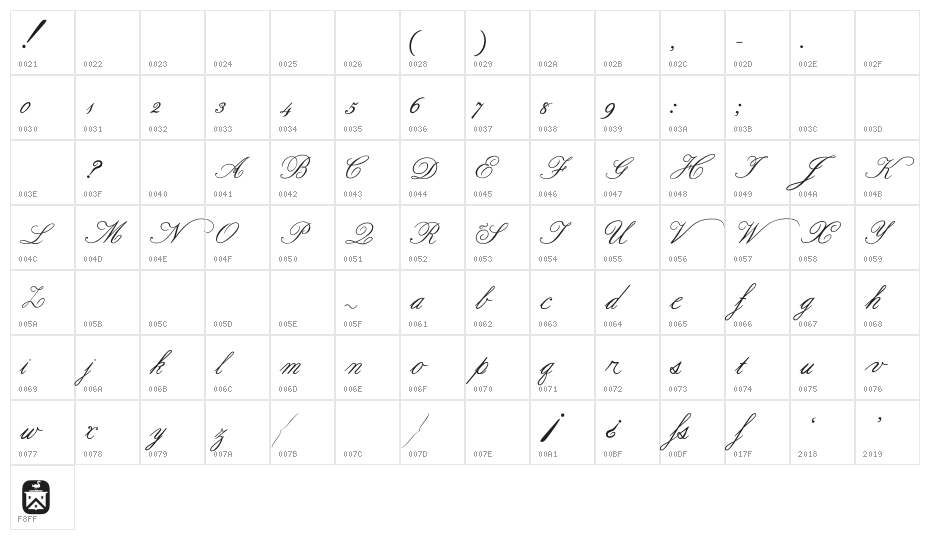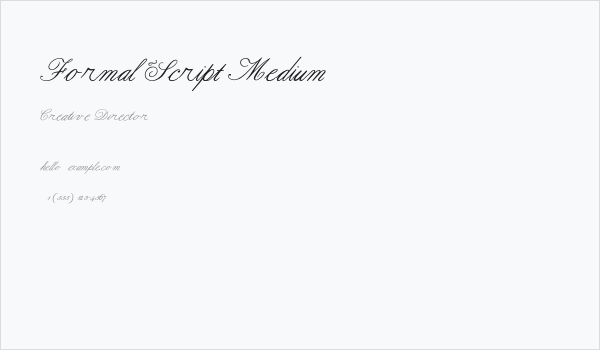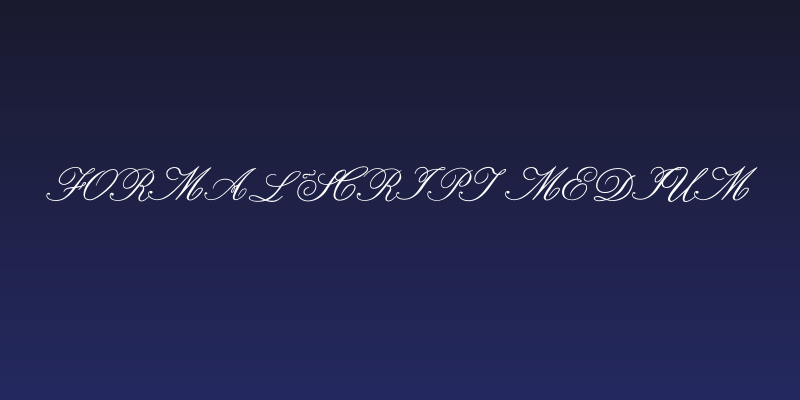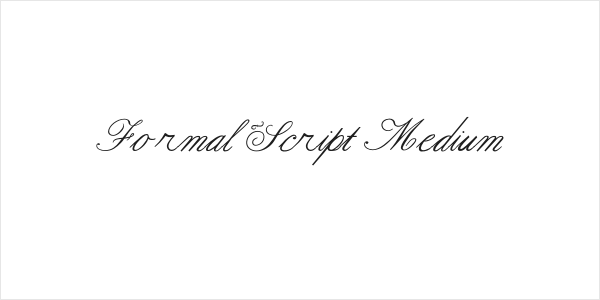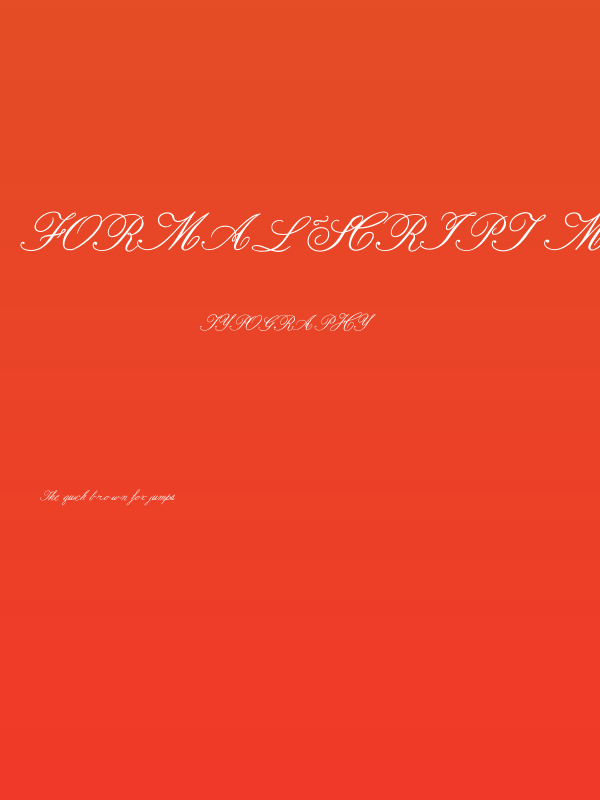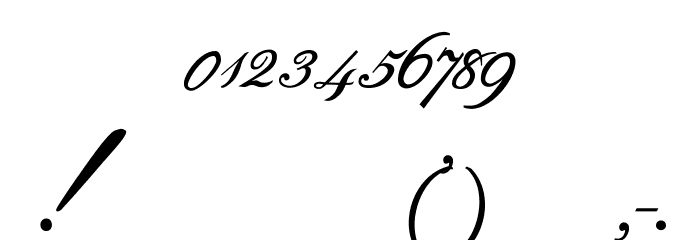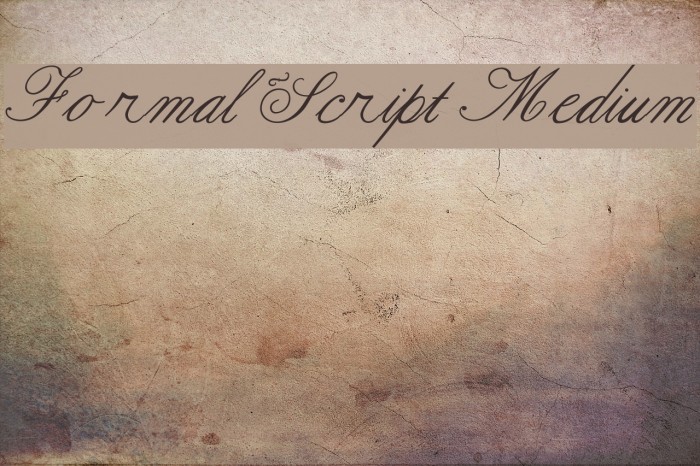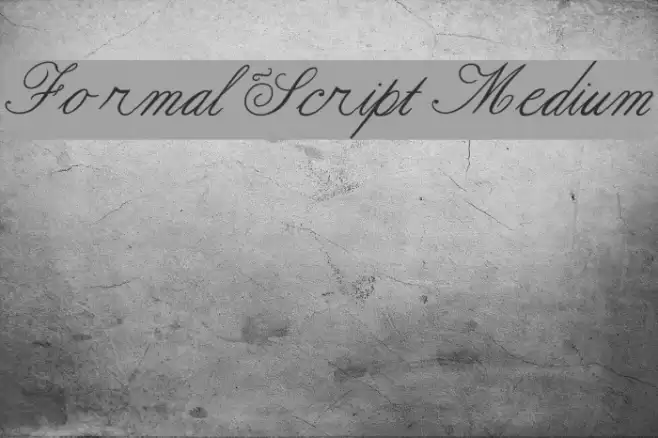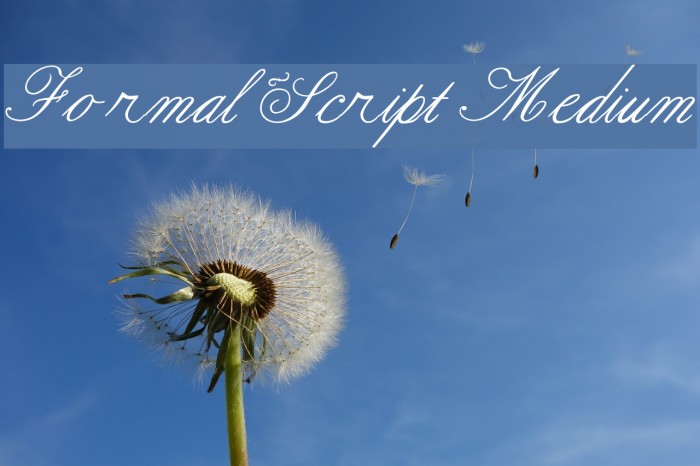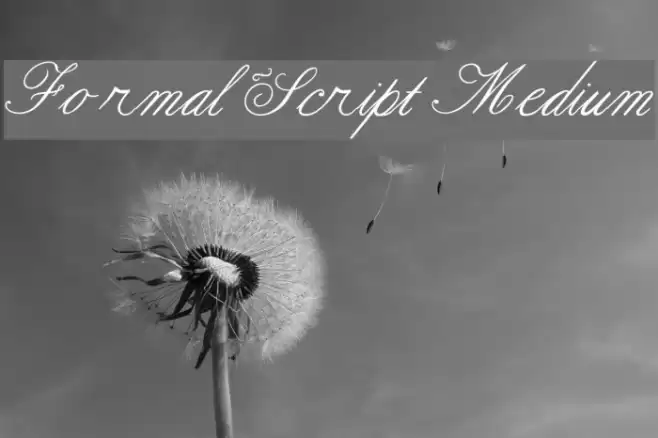
Formal Script Medium Font
Formal Script Medium Description
This elegant script font features flowing, cursive letterforms with a refined and sophisticated appearance. The uppercase letters are characterized by their intricate loops and flourishes, while the lowercase letters maintain a smooth and connected style, enhancing readability. The numerals are consistent with the overall script style, offering a cohesive look. Special characters are designed with the same attention to detail, ensuring they blend seamlessly with the rest of the font. This font exudes a formal and classic charm, making it suitable for high-end design projects.
| Overall Style | Classic |
| Use Case | Logos, Invitations, Formal documents |
| Proposed Projects | Ideal for wedding invitations, formal event programs, luxury branding, and elegant stationery. |